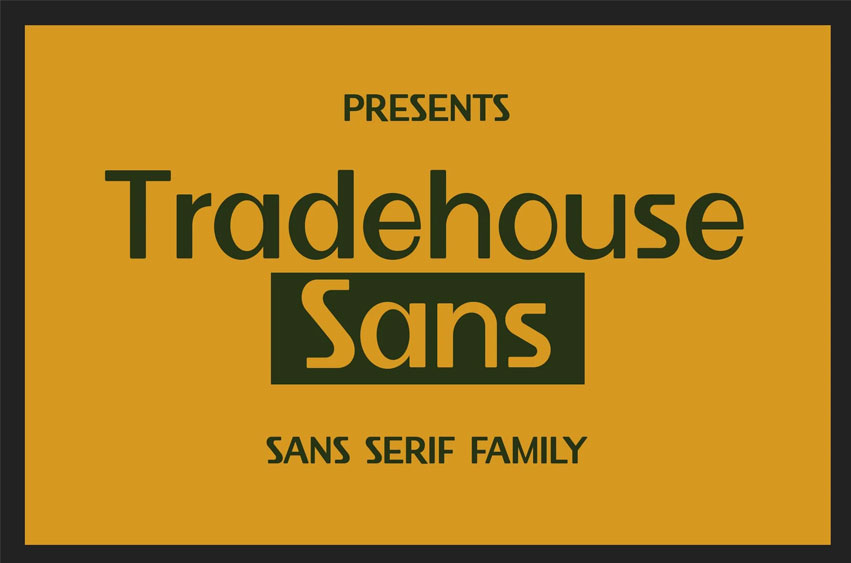
Tradehouse Font Sans Serif Family Font that feels beautiful classy, elegant, and modern. This font is perfectly suited for a wide variety of projects, such as signature, stationery, logo, wedding, typography quotes, magazine or book covers, website headers, packaging design, and more.
Tradehouse Sans Serif is a versatile and contemporary sans serif font family that embodies the perfect balance between professional functionality and distinctive character. This meticulously crafted typeface collection delivers exceptional legibility across multiple platforms while maintaining a unique personality that sets it apart from more generic sans-serif options. Drawing inspiration from both modernist design principles and commercial typography traditions, Tradehouse Sans creates a visual language that feels simultaneously timeless and current, making it an ideal choice for forward-thinking brands and design projects that require both clarity and character.
The Tradehouse Sans Serif Family features carefully calibrated weights that provide designers with precise typographic control across various applications. Each weight has been optimized for outstanding readability at different sizes, with subtle ink traps that ensure crisp text reproduction in smaller sizes while becoming distinctive stylistic elements at larger display settings. The font’s balanced proportions and thoughtful letter spacing create a comfortable reading experience across both print and digital media, while its clean geometric structure provides the versatility needed for contemporary design challenges.
Tradehouse Sans Serif Family Font excels in corporate identity systems, user interface design, editorial layouts, wayfinding systems, and modern packaging applications. Its comprehensive character set and variable features make it particularly well-suited for brands that operate across multiple channels and require typographic consistency without sacrificing visual interest. Whether used for headlines that demand attention or body text that needs to communicate clearly, this font family provides designers with a sophisticated typographic toolkit that can adapt to diverse communication needs while maintaining a cohesive visual identity.
- Complete Sans Serif Family with Multiple Weights (Thin, Light, Regular, Medium, SemiBold, Bold, ExtraBold, Black)
- Matching Italic Styles for Each Weight